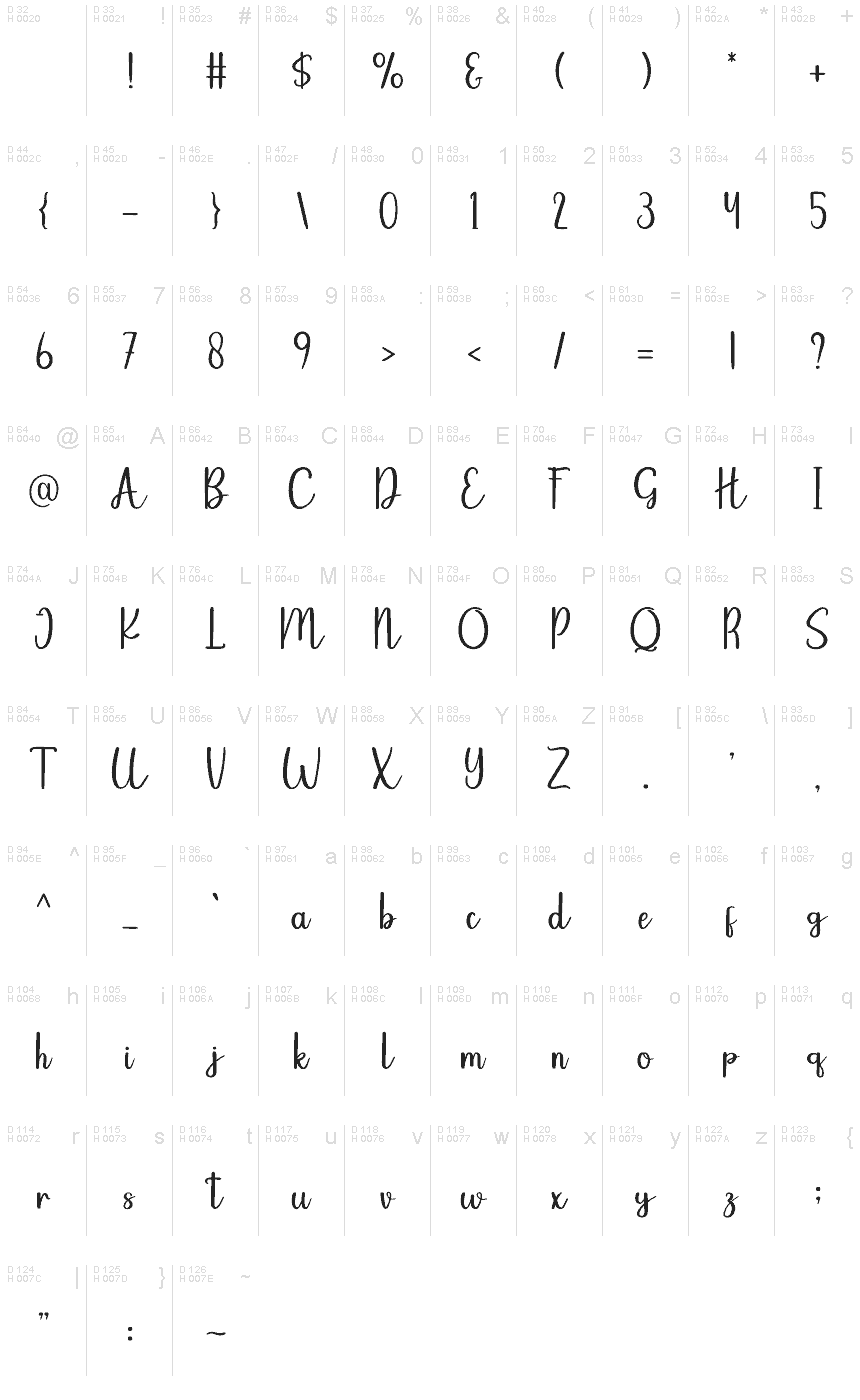
Manufacture
Manufacture font designed by One Design is a free handwritten font choice to effectively showcase typography as an art form. It contains charming and pointy letters with elegant curves and delicate strokes. The finest writing details are displayed with passion, spontaneity, dedication, and professionalism. Casual yet graceful, each written word will be able to capture your viewers’ attention.
The font is manufactured (!) for headlines first of all which means you can use it in titles, header sections on the web or print. For more specific usages include authoring video covers, product packaging (fashion related especially), book covers, T-shirts designs etc.